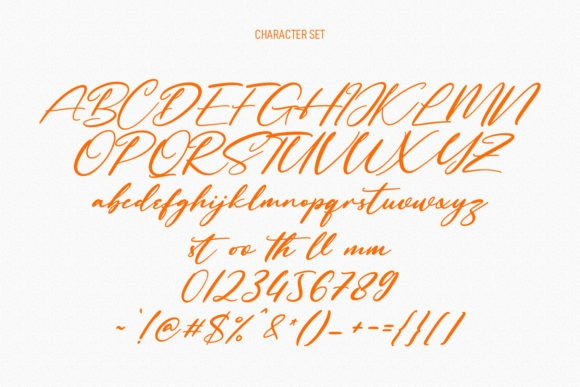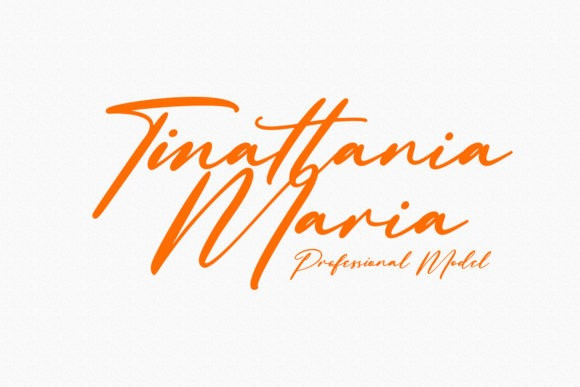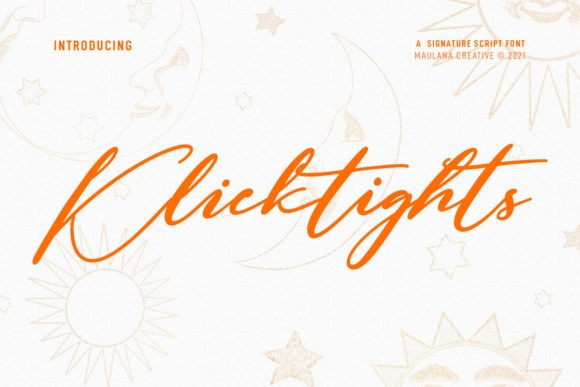
Klicktights Script Font feels equally charming and elegant. It looks stunning on wedding invitations, thank you cards, quotes, greeting cards, logos, business cards and every other design which needs a handwritten touch.